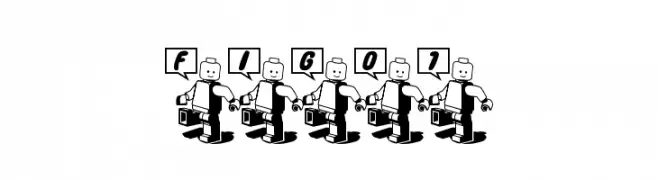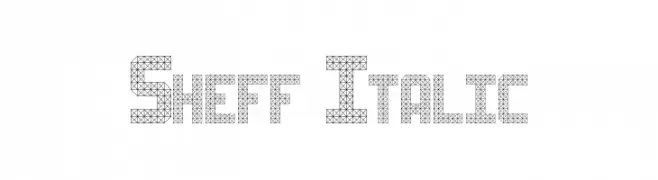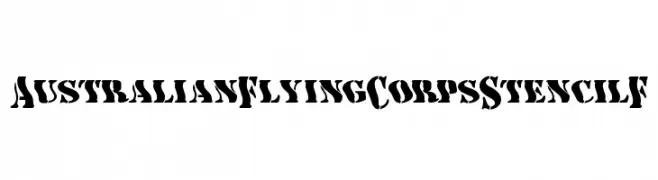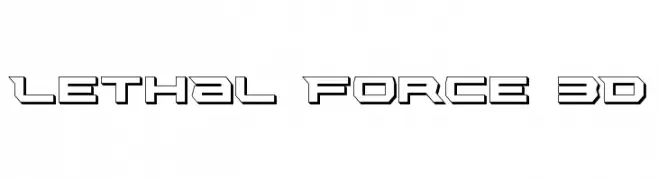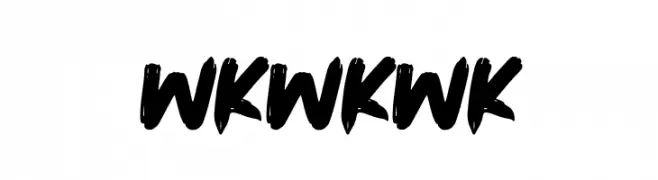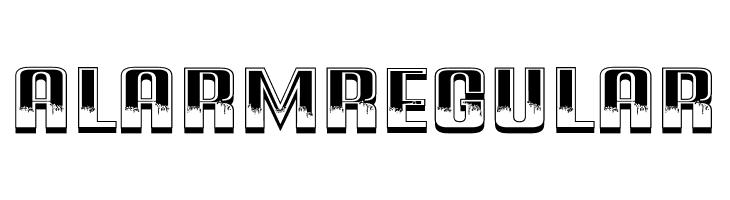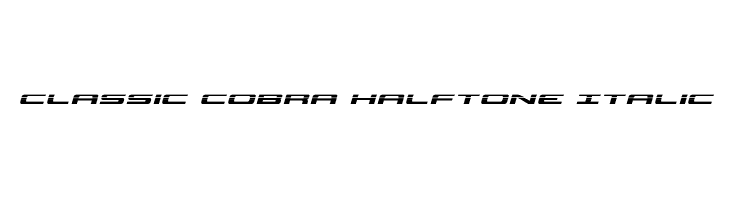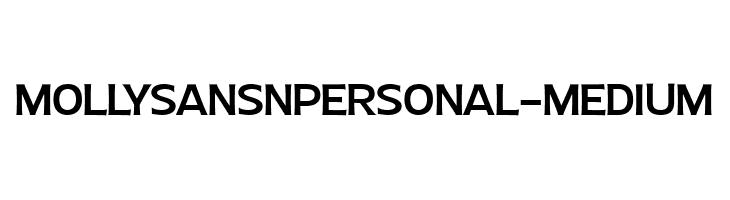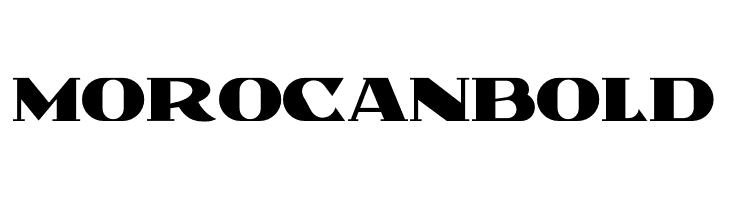
A playful, cartoonish font with characters held by a stylized figure.
A bold, hand-painted style font with a playful and artistic flair.
A sleek, semi-bold italic font with a modern and streamlined appearance.
A bold, playful font with a hand-drawn, whimsical style.
A bold, geometric font with a triangular mesh pattern, ideal for decorative use.
A bold, stencil-style font with rugged cutouts for a utilitarian look.
A bold, 3D geometric font with a futuristic and industrial style.
A playful, handwritten-style font with bold, rounded characters.
A bold, distressed font with a gritty, urban aesthetic.
A bold, brush-style font with dynamic, hand-painted strokes.